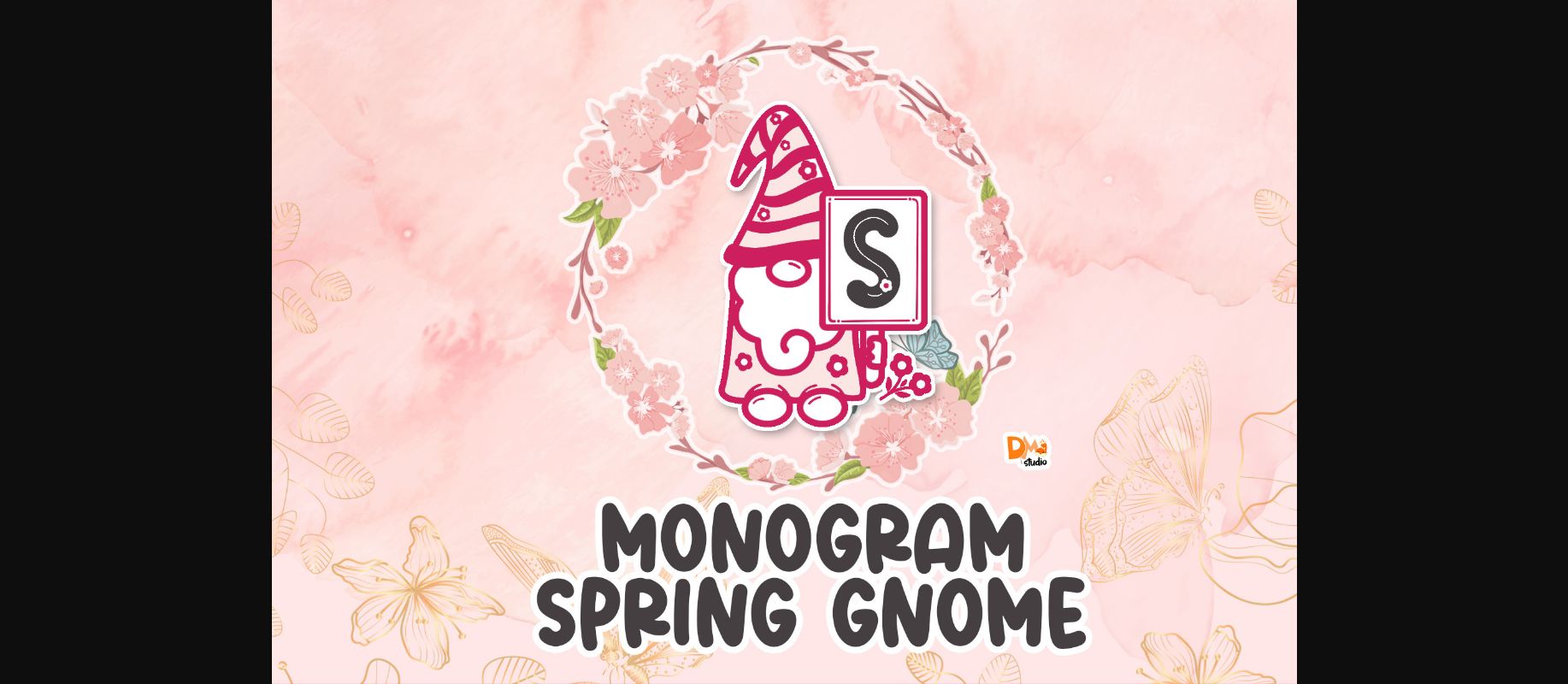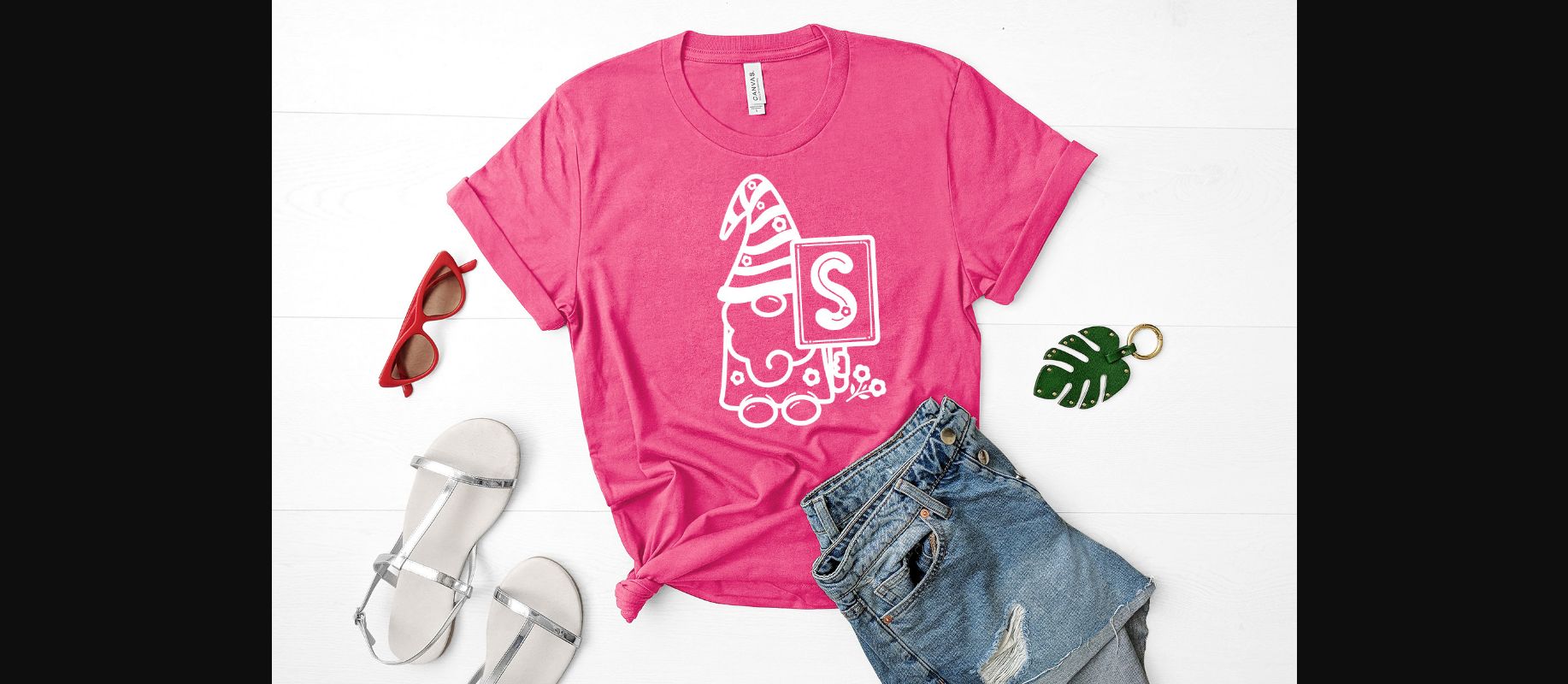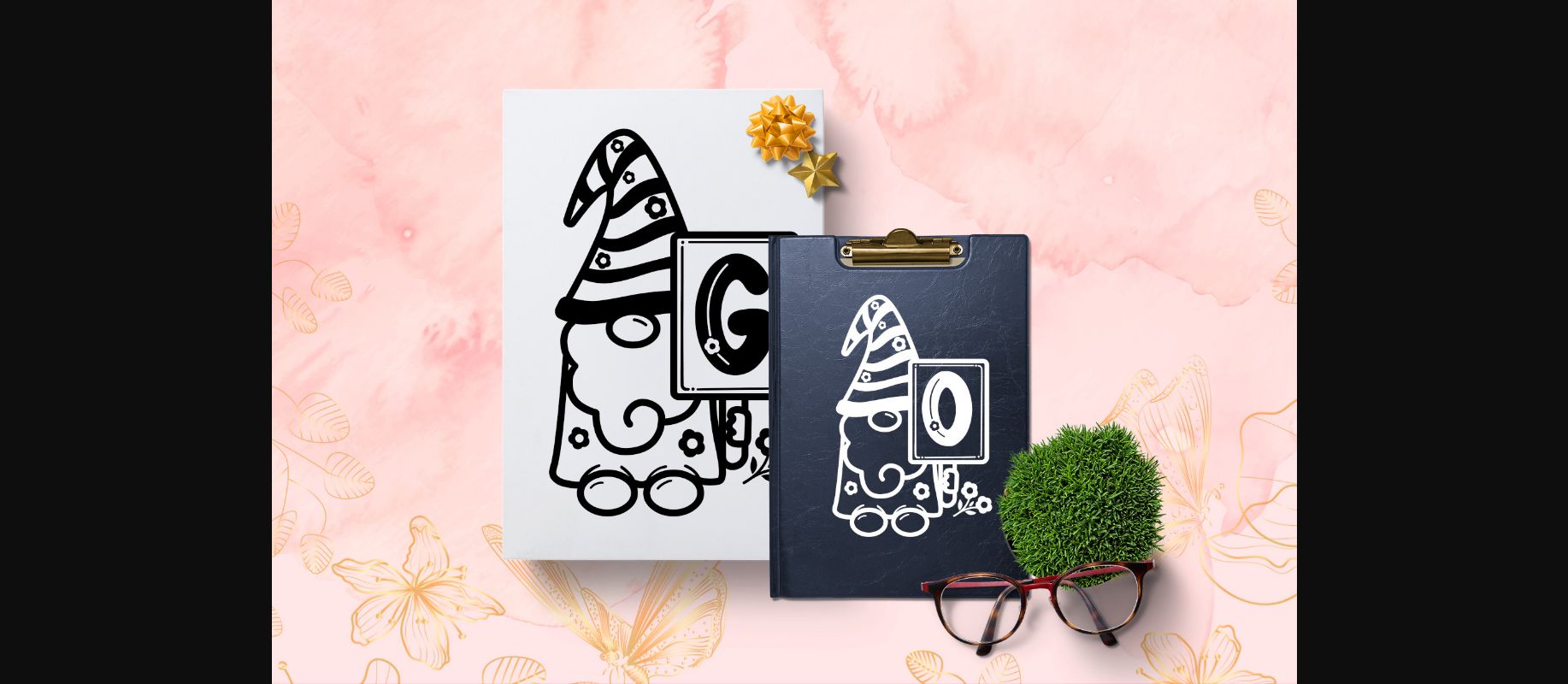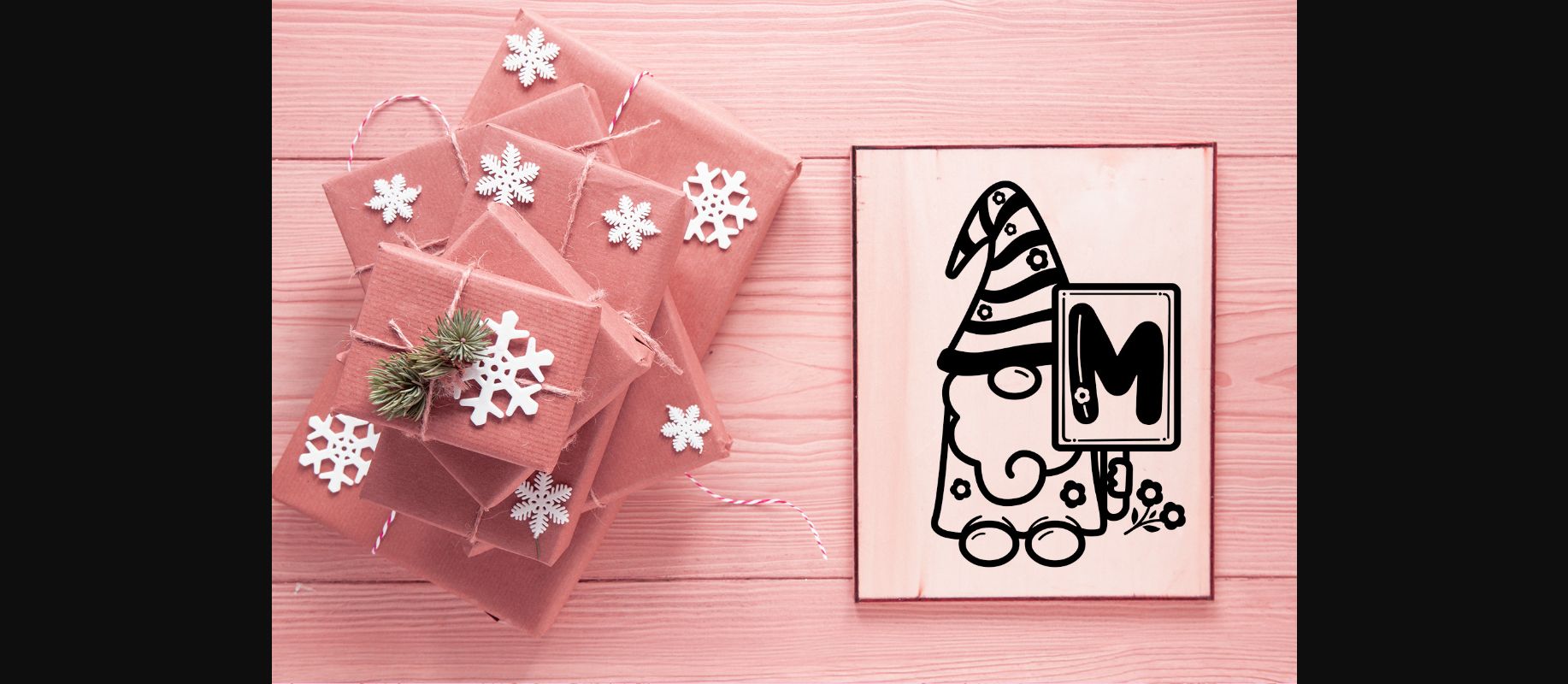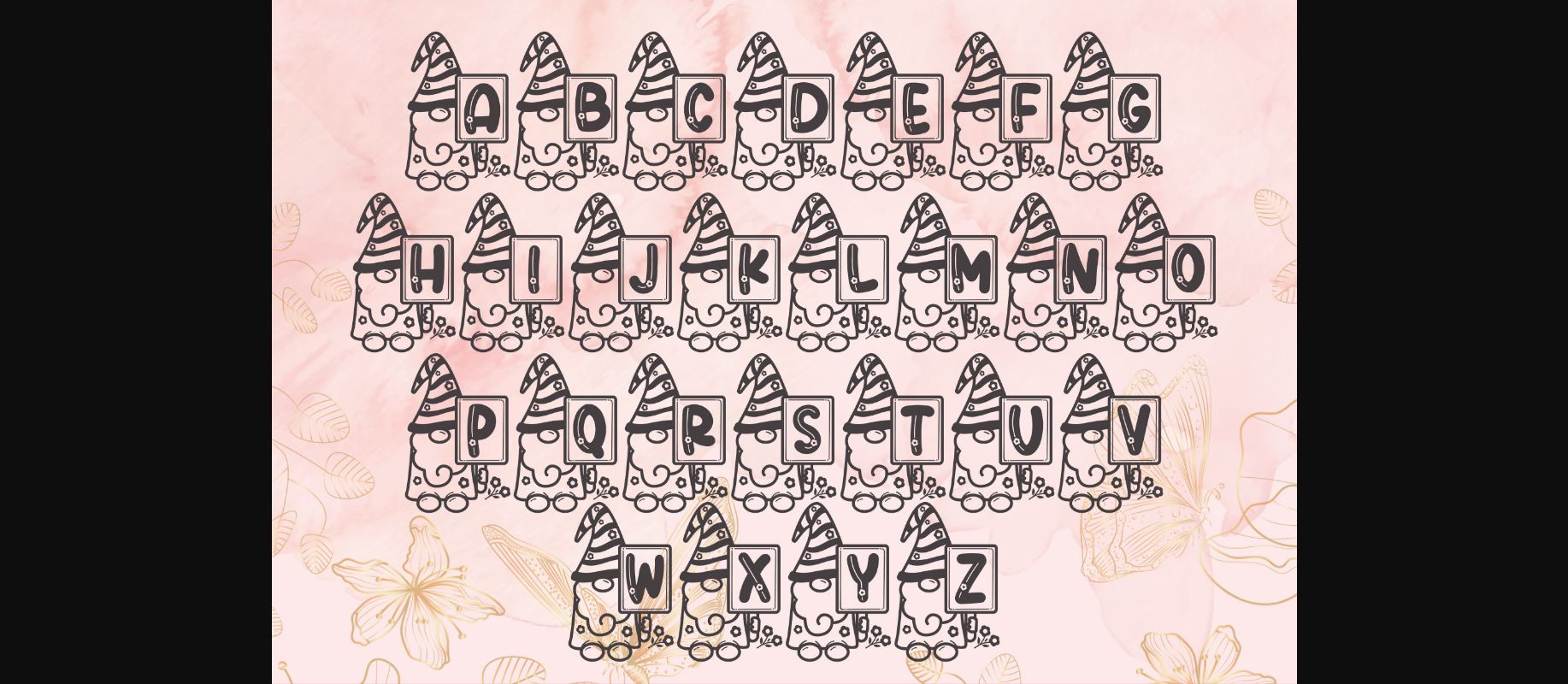
Spring Gnome Monogram Font
About Spring Gnome Monogram Font
Spring Gnome Monogram is an incredibly cute and original decorative font. Whether you use it for cartoon related designs, children games or just any creation that requires a lovely touch, this font will be an amazing choice.